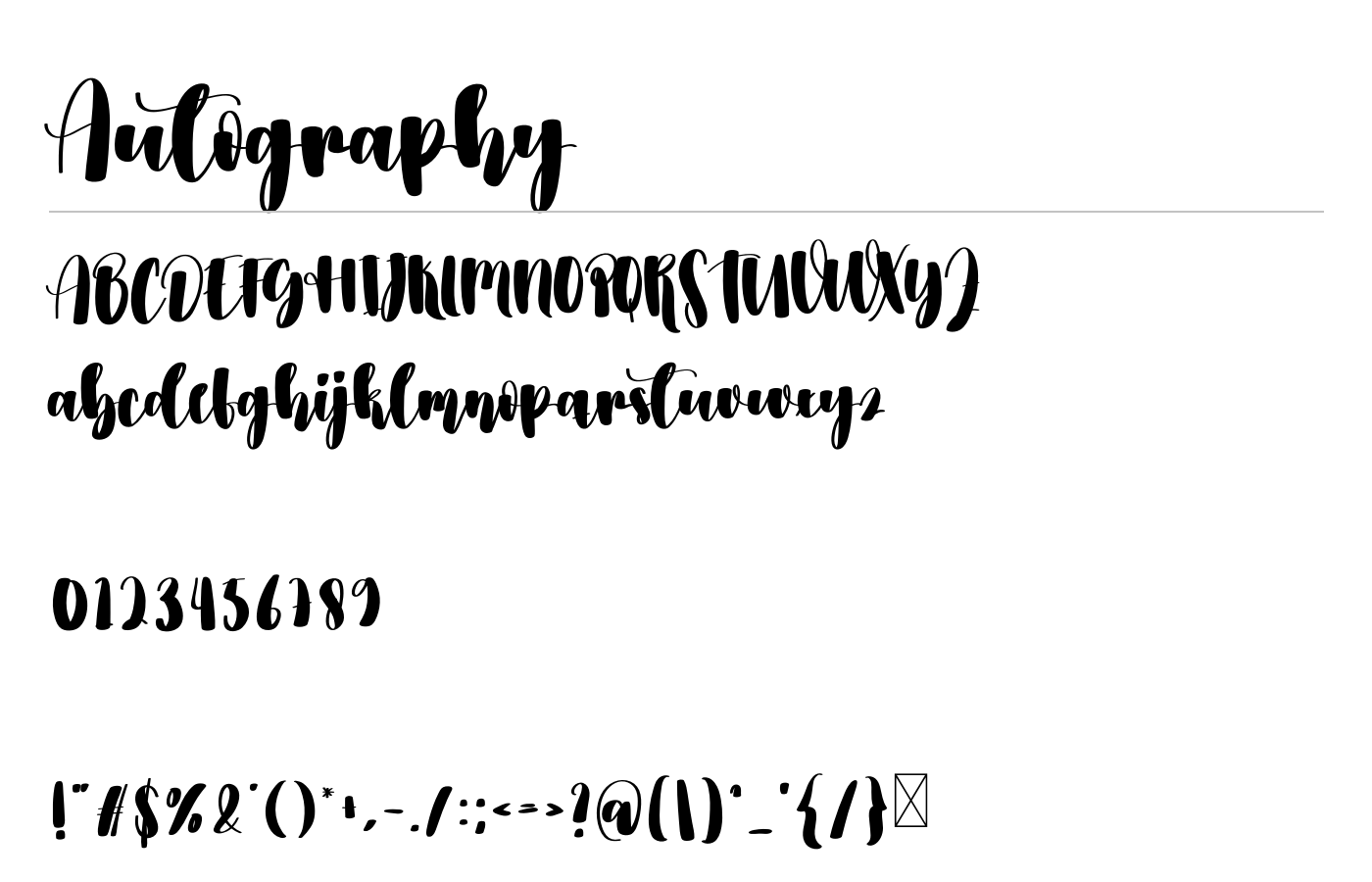
Autography is a bold, playful script font with a hand-lettered feel, featuring thick strokes and charming, flowing flourishes that add a touch of elegance. Its high contrast and lively curves make it ideal for creative branding, invitations, and eye-catching headlines where a personal, artistic vibe is desired. This font works best in contexts that need warmth and expressiveness, such as fashion, lifestyle, or boutique packaging.
Autography Font
About Autography Font